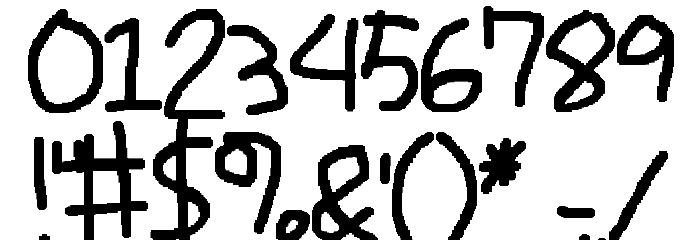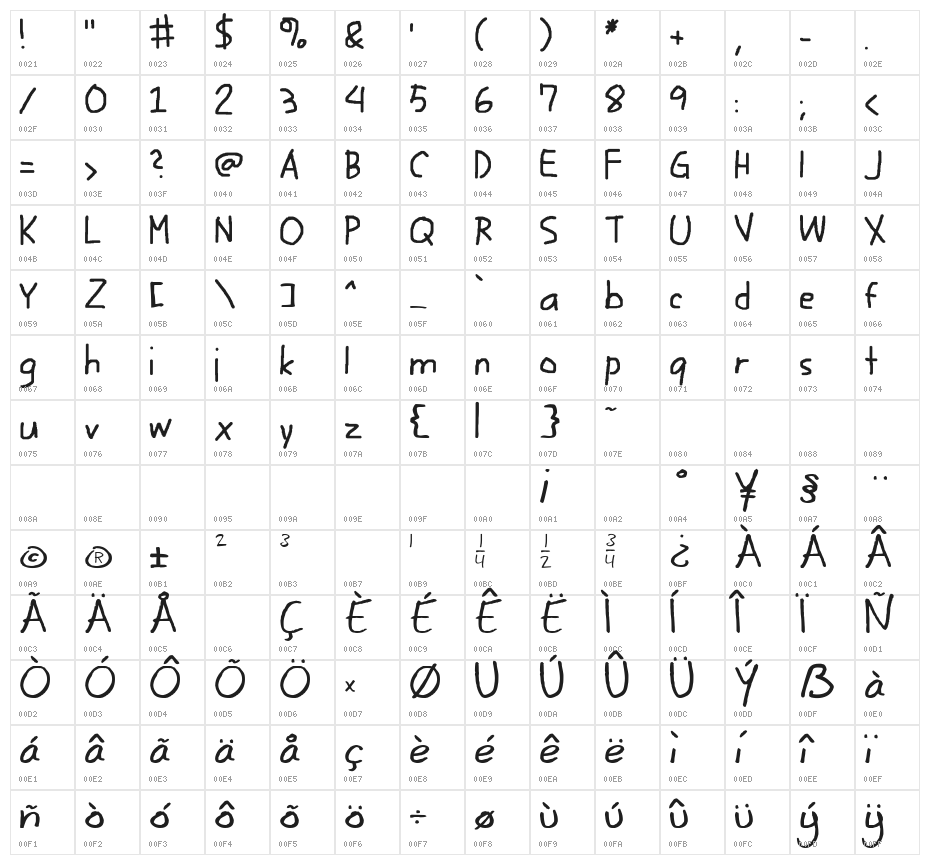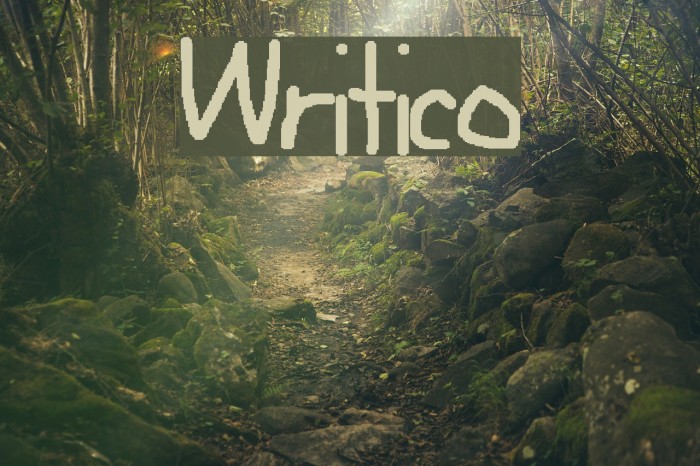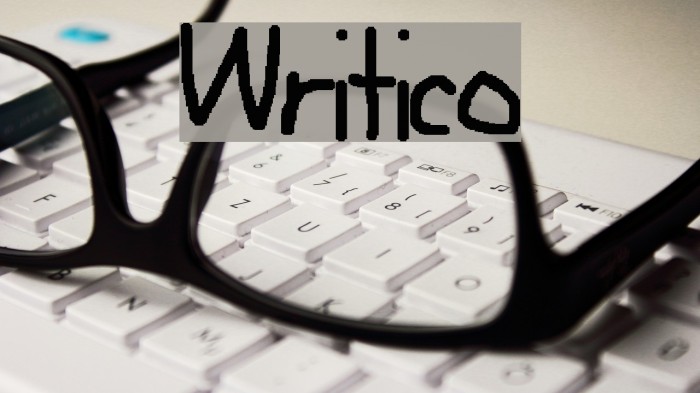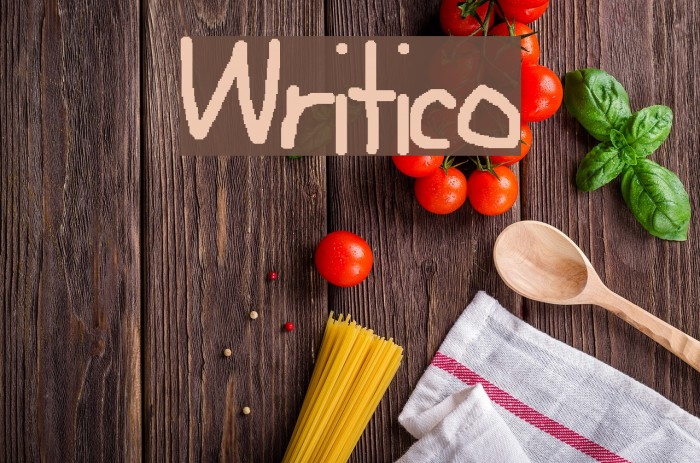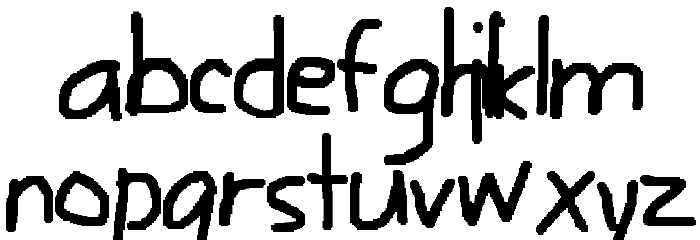
Writico Font
Writico Description
This font exhibits a playful and casual handwritten style, characterized by its irregular strokes and slightly uneven baseline. The letters are bold and rounded, giving it a friendly and approachable appearance. The uppercase and lowercase letters maintain a consistent style, with the uppercase being slightly larger and more pronounced. Numbers and special characters follow the same informal aesthetic, making the font versatile for various creative projects. The overall look is reminiscent of a personal note or a casual doodle, adding a touch of personality and warmth to any design.